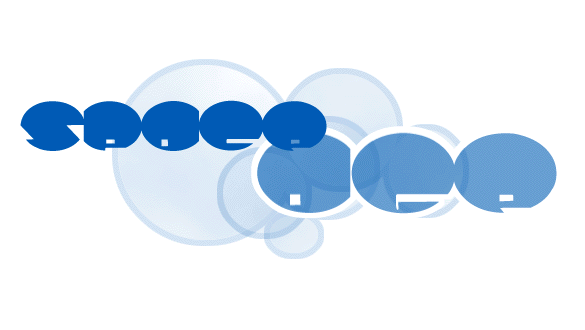
Space Ace
Space Ace is my favorite font that I ever made. My non-fontophile friends say it looks too bubbly. They can't read it. Hey, at least it isn't a grunge font. I think if I lived in the 22nd century my whole life, this would be one of the staple fonts I would use on a daily basis.